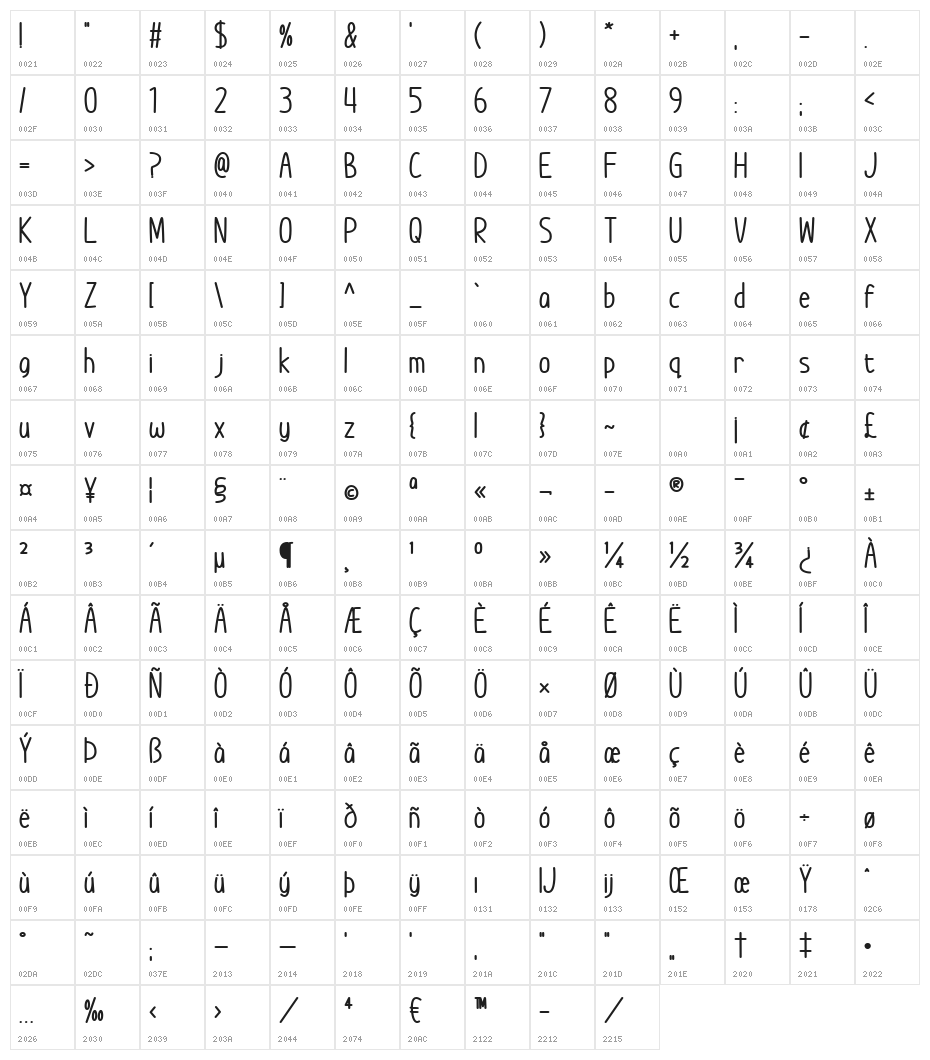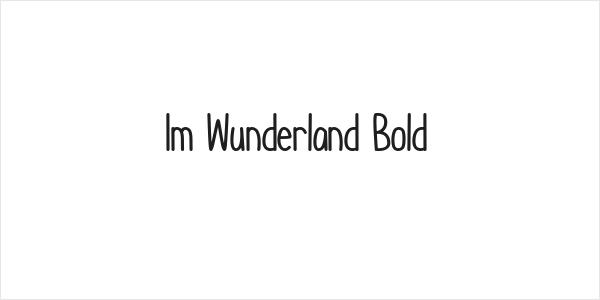
Im Wunderland Bold Font
Im Wunderland Bold Description
This playful and whimsical font features rounded, smooth edges and a casual, handwritten style. The characters are slightly elongated, giving them a unique and friendly appearance. The font maintains a consistent stroke width throughout, which adds to its approachable and informal feel. It includes a full set of uppercase and lowercase letters, numbers, and a variety of special characters, making it versatile for various design needs. The overall look is clean yet lively, suitable for projects that require a touch of personality and warmth.
| Proposed Projects | Ideal for children's books, greeting cards, playful branding, and casual invitations. |